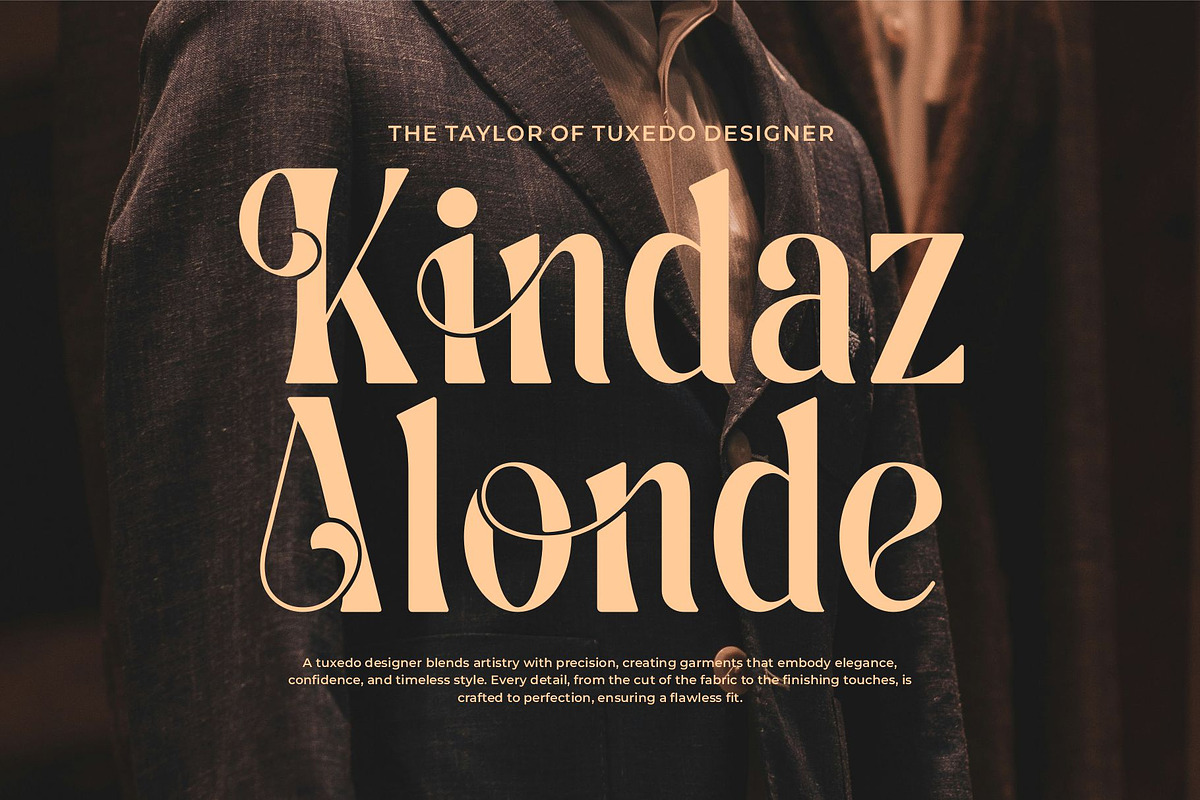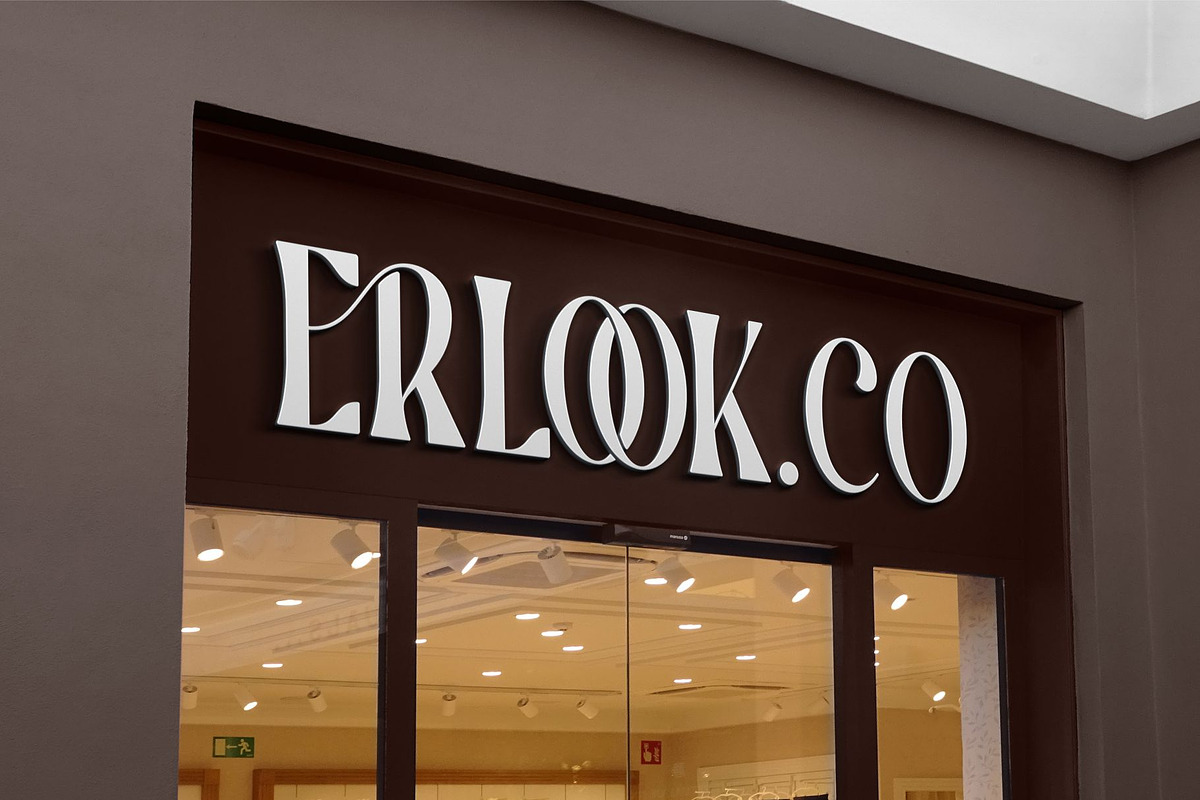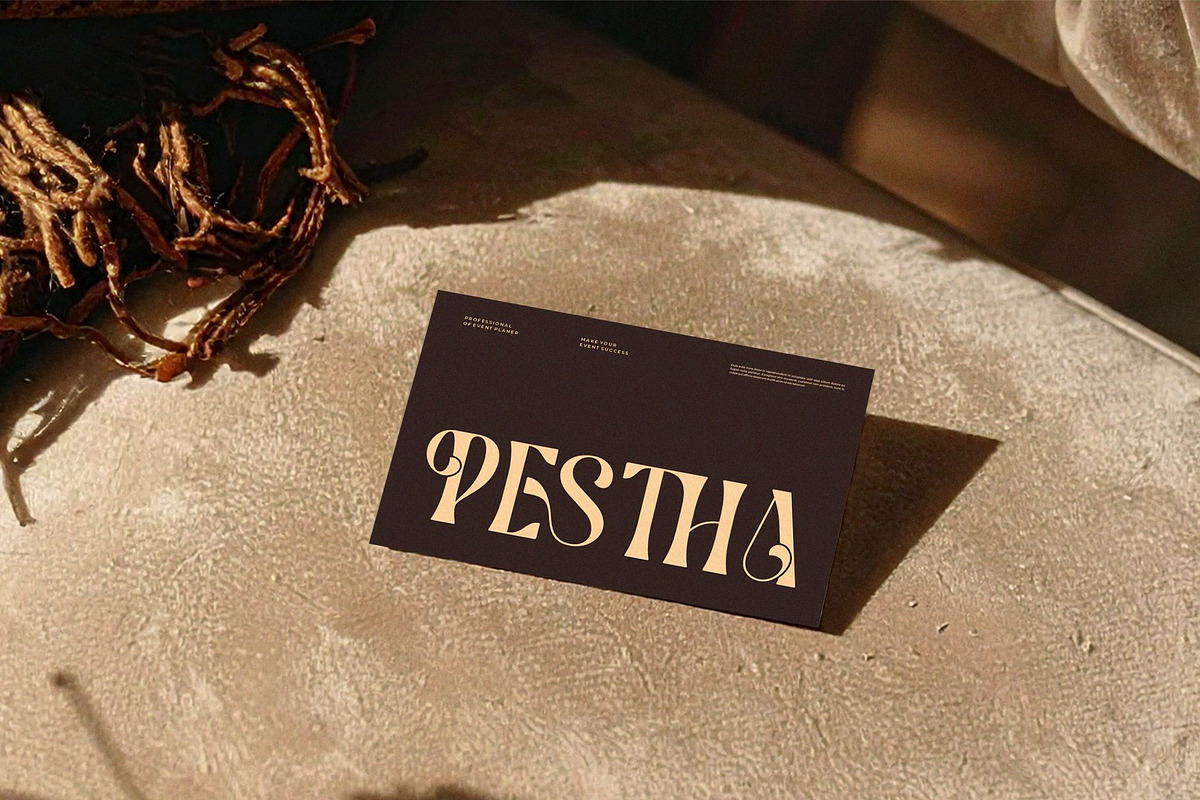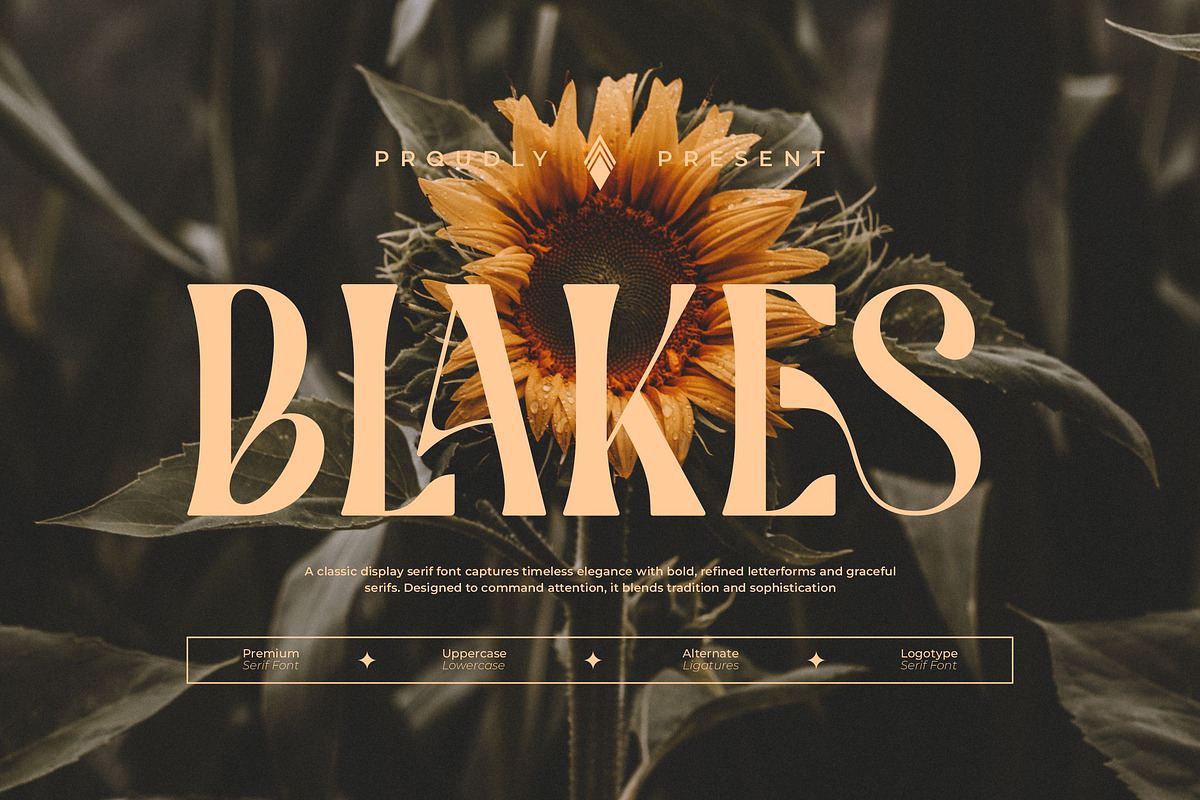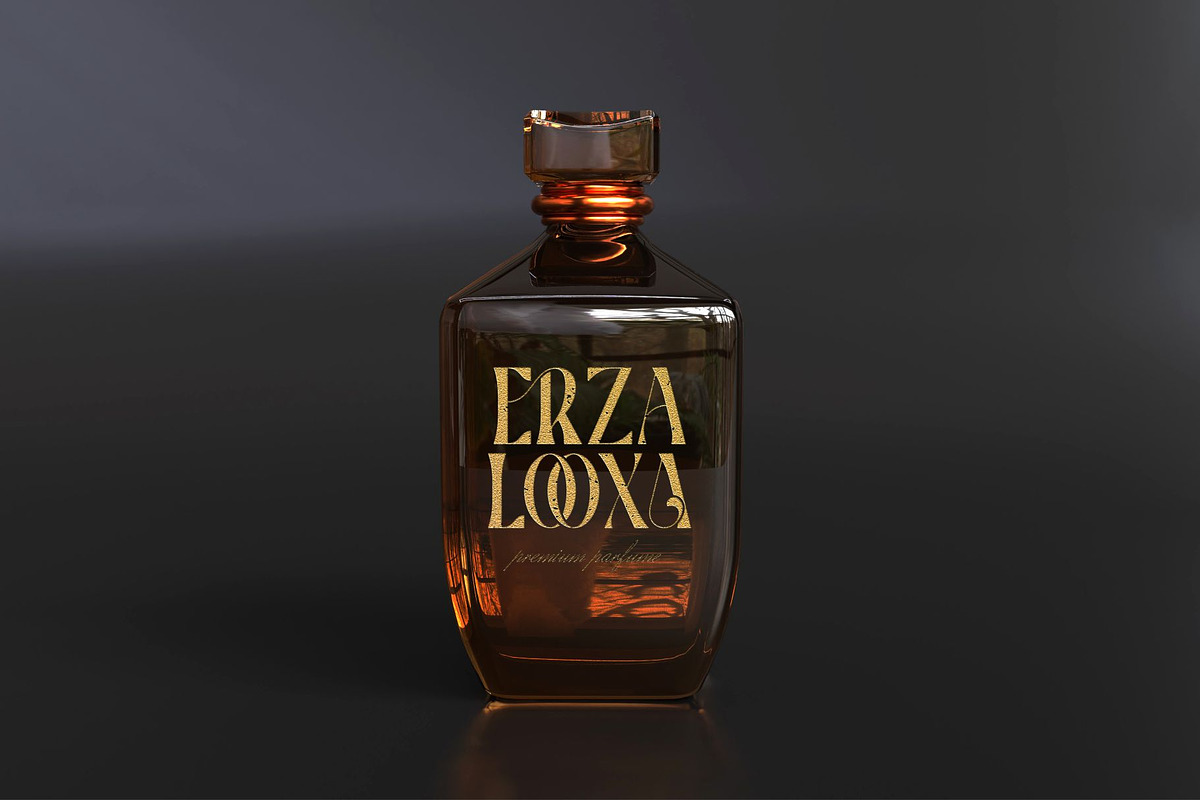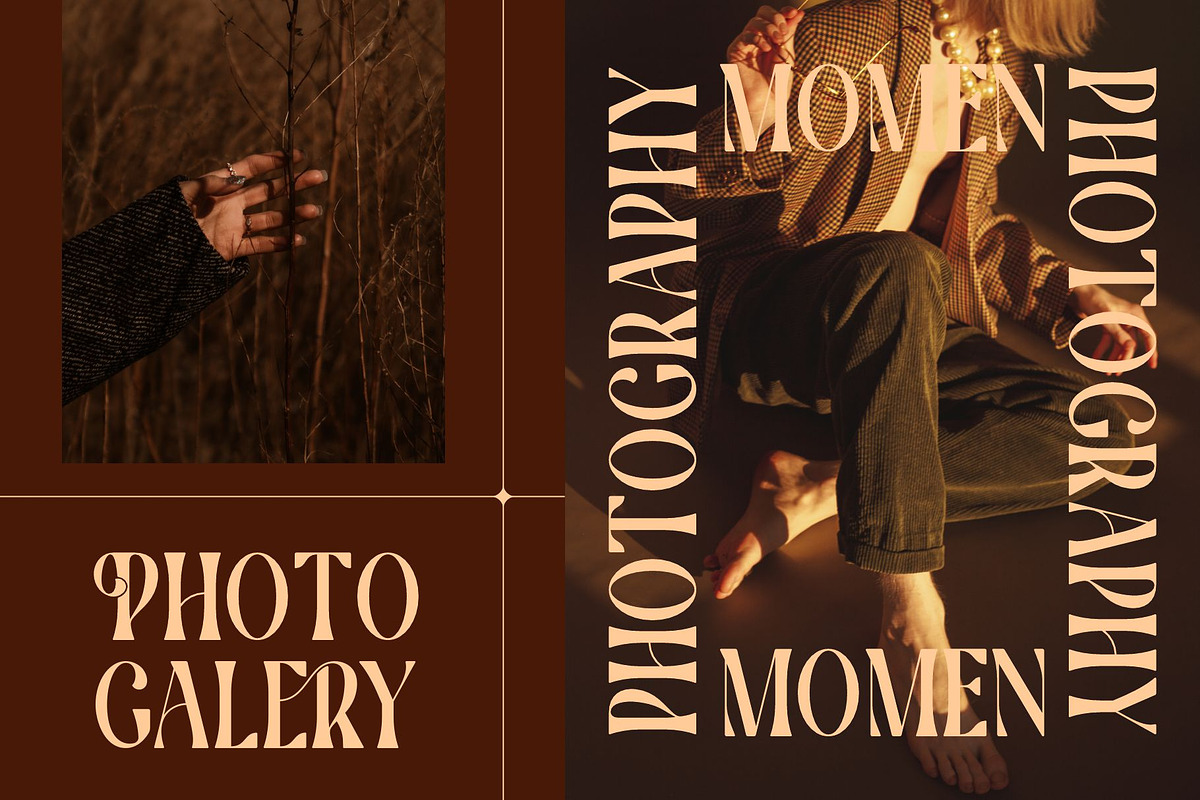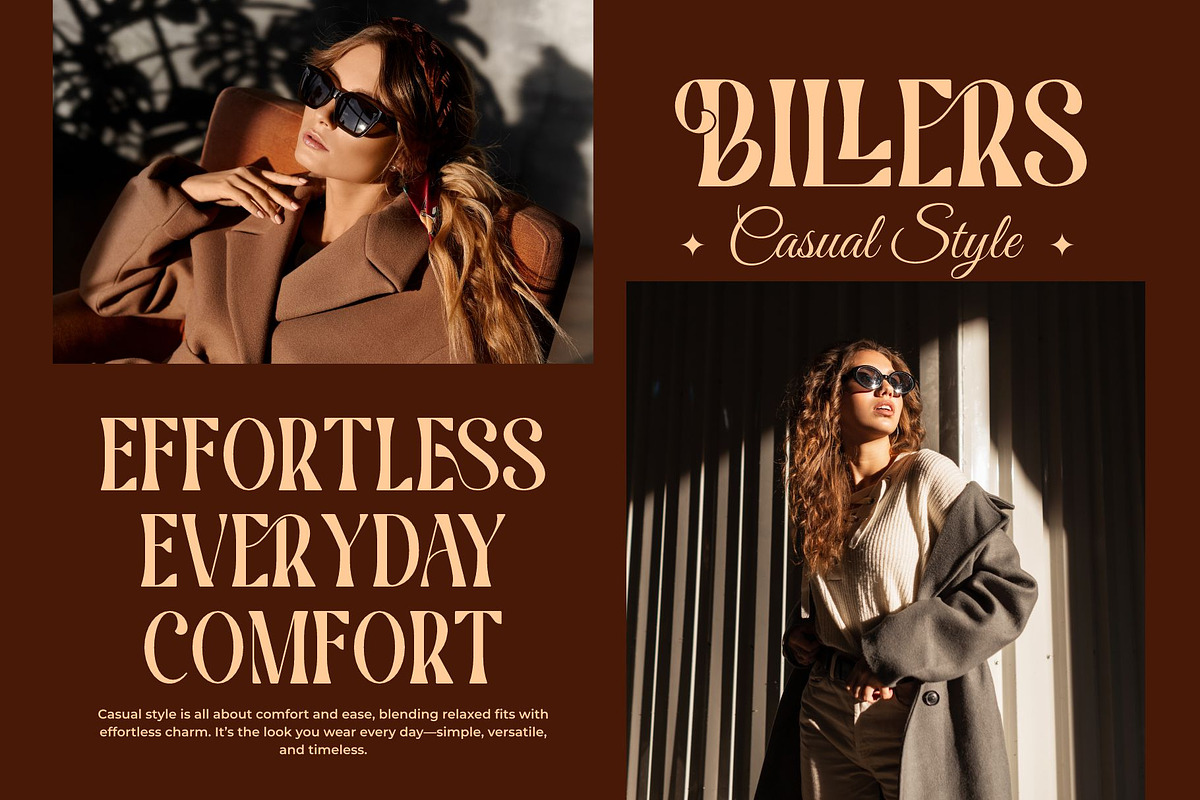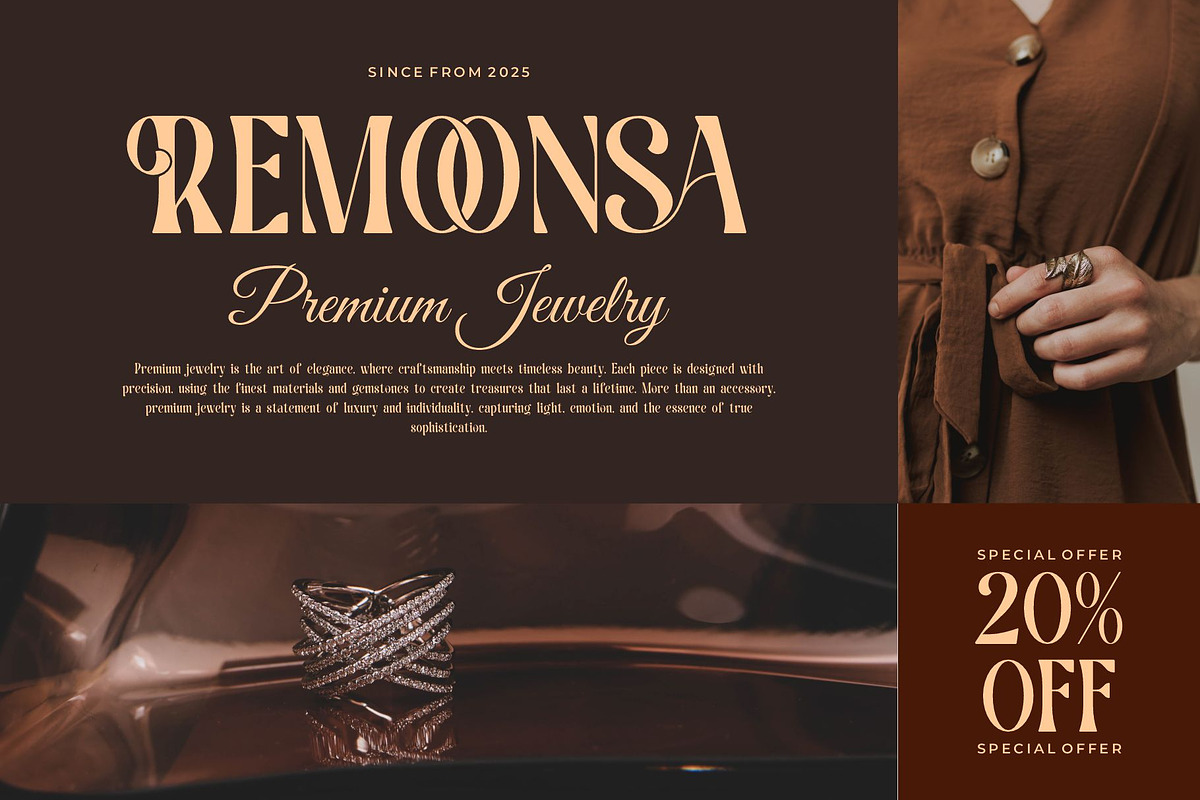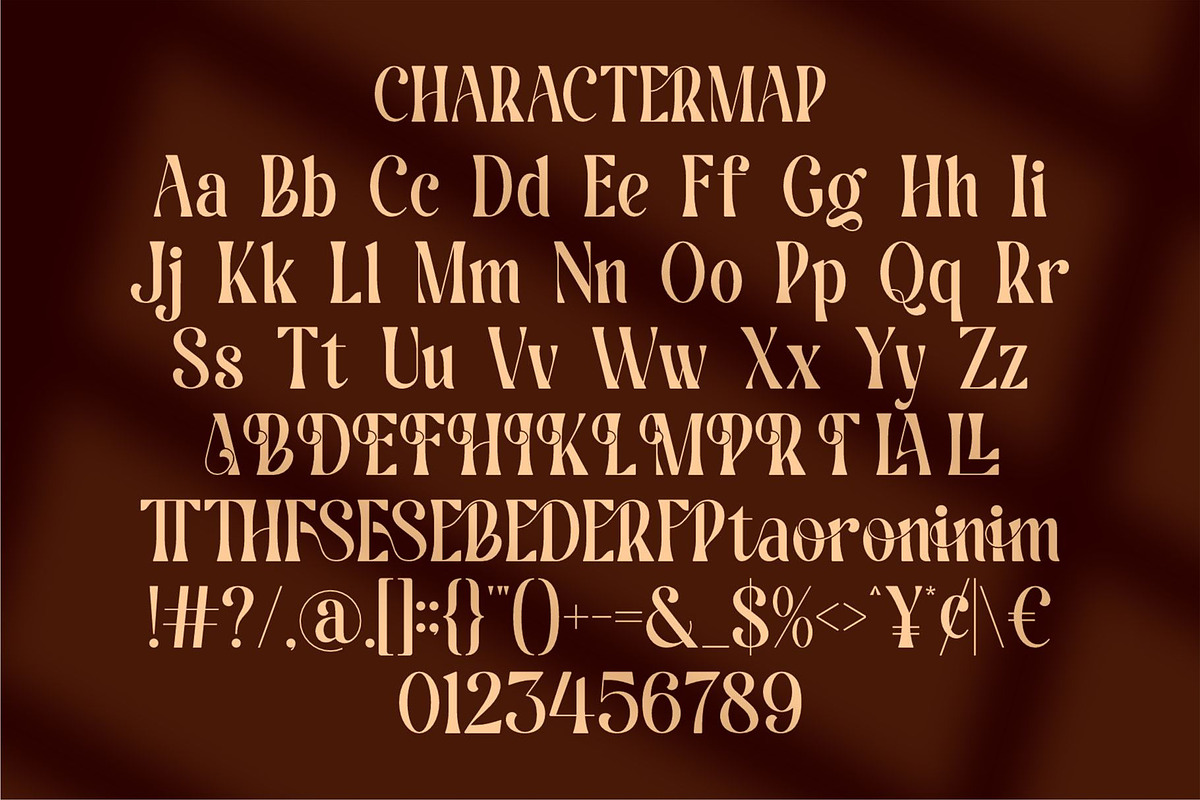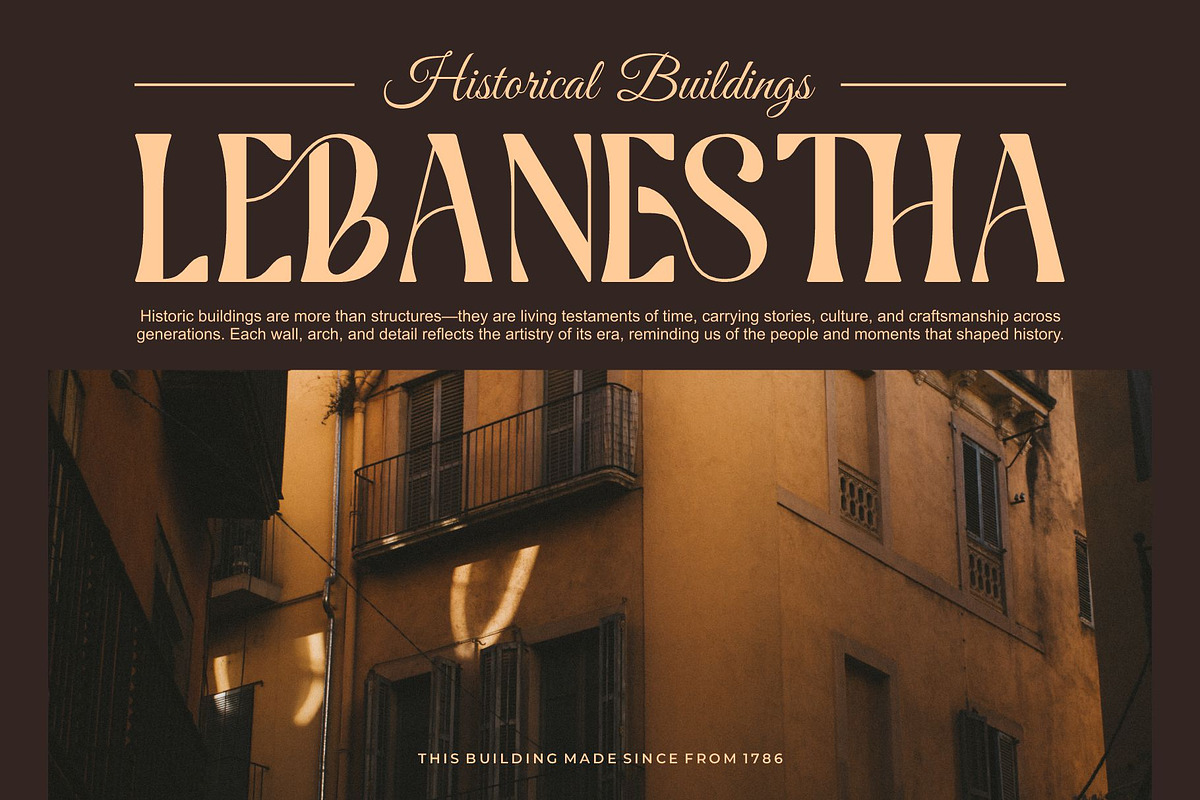
Blakes || Vintage Condensed Serif
Blakes Condensed Serif is a Vintage and classy font type for all branding and logo designs. This Vintage and classy Serif font has a beautiful character. This font is suitable for invitation card designs, cool logos, movie titles, movie names, business cards, book titles, brand names, and various other designs. Blakes Condensed Serif is a smooth serif font that exudes sophistication and the moment. Its stylish ligatures make this font a perfect partner for any project.